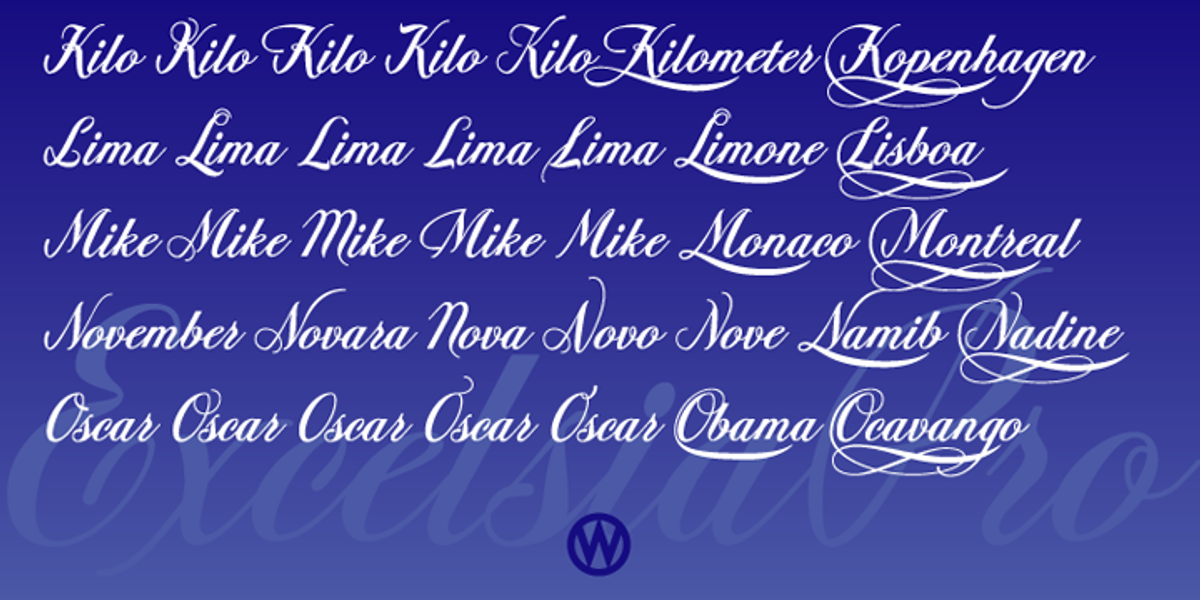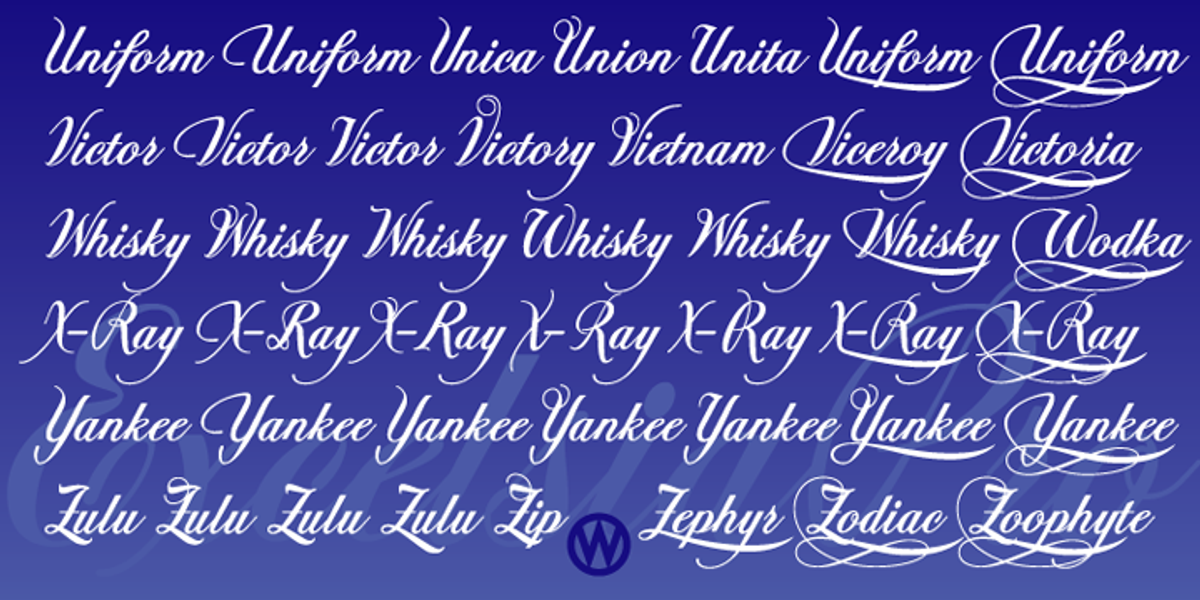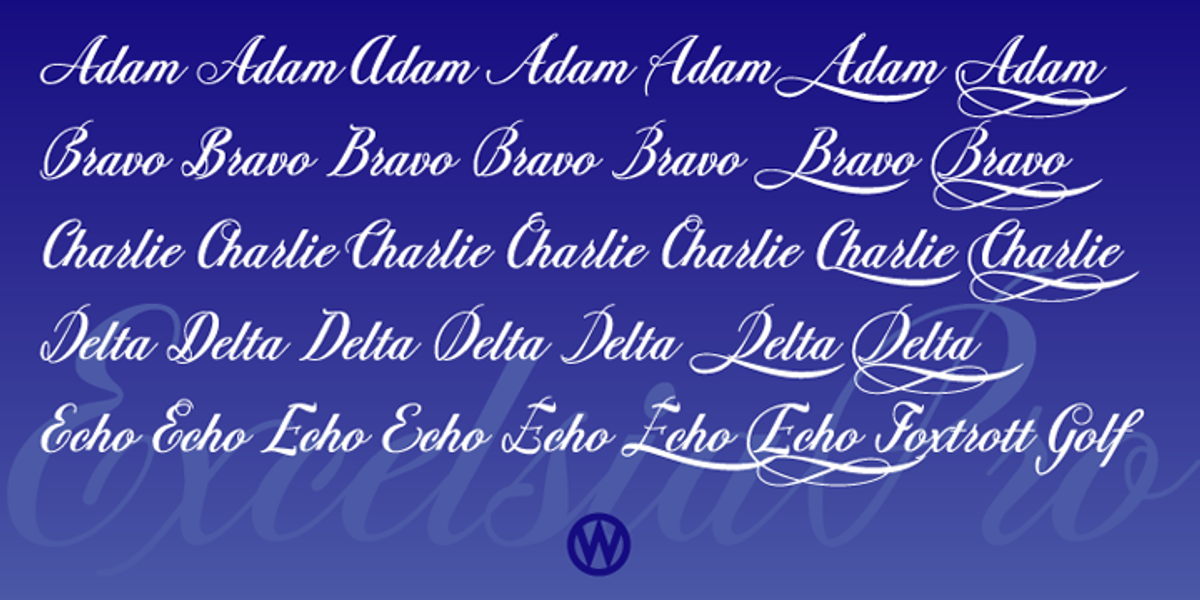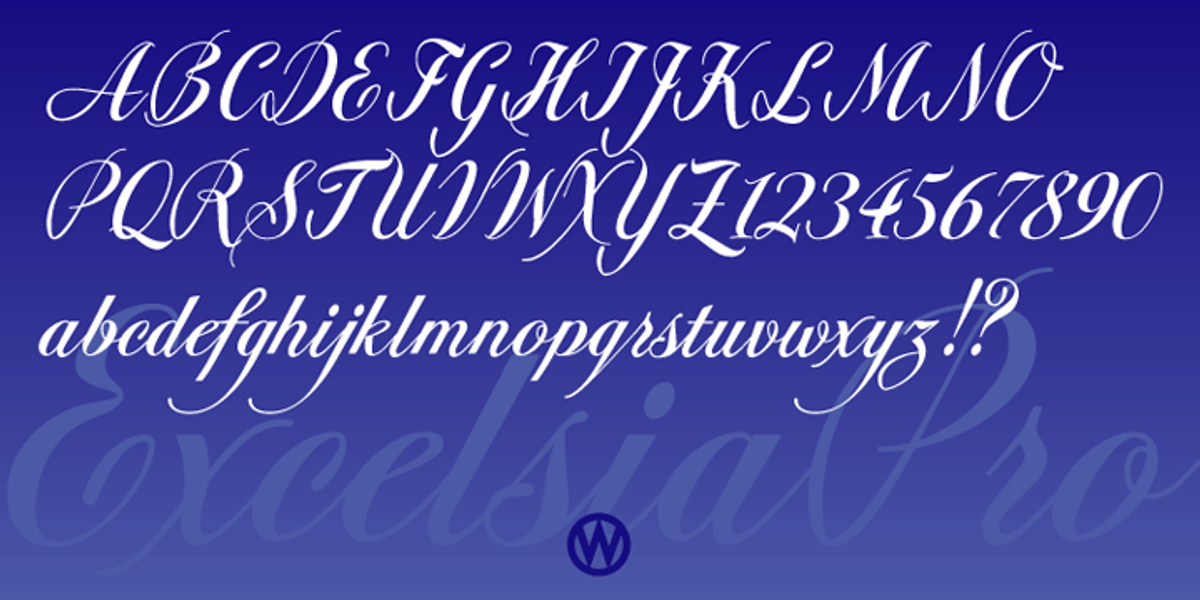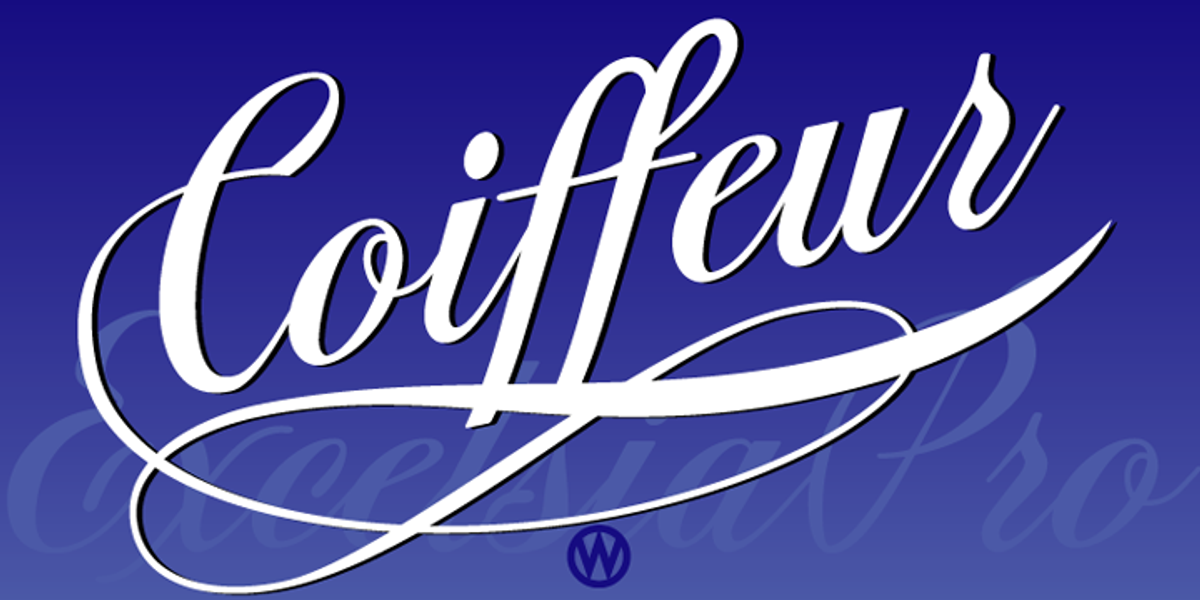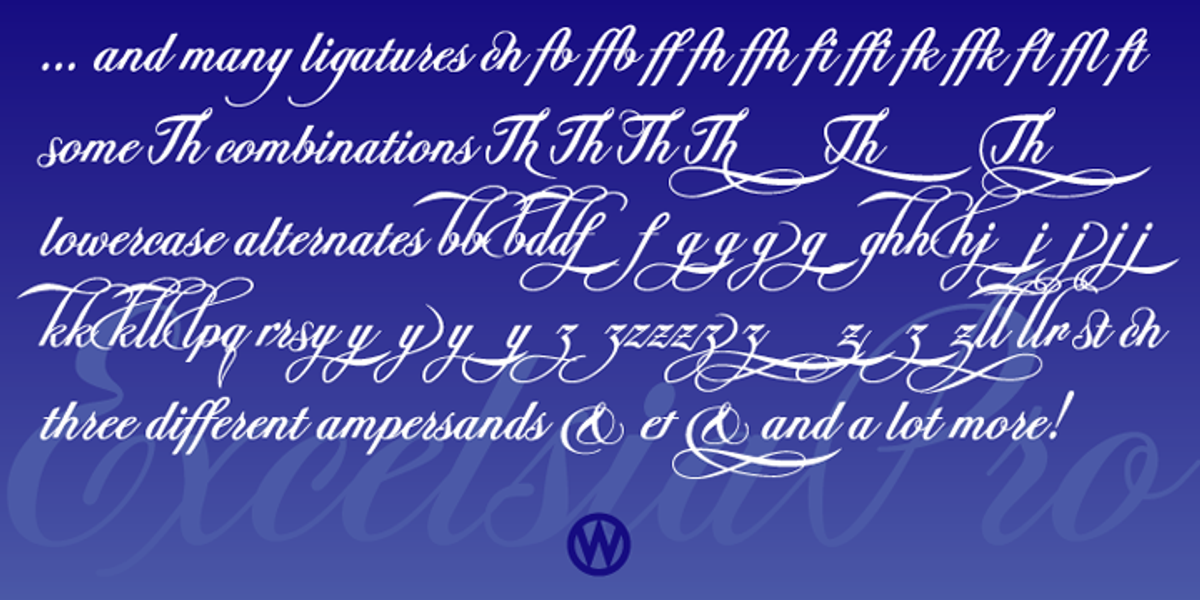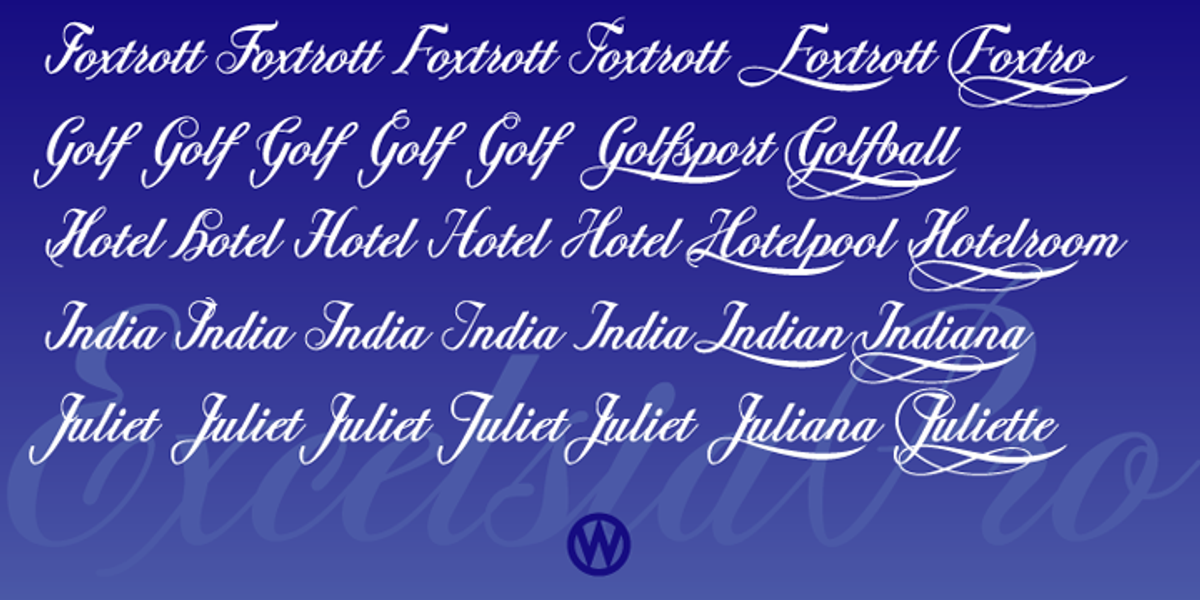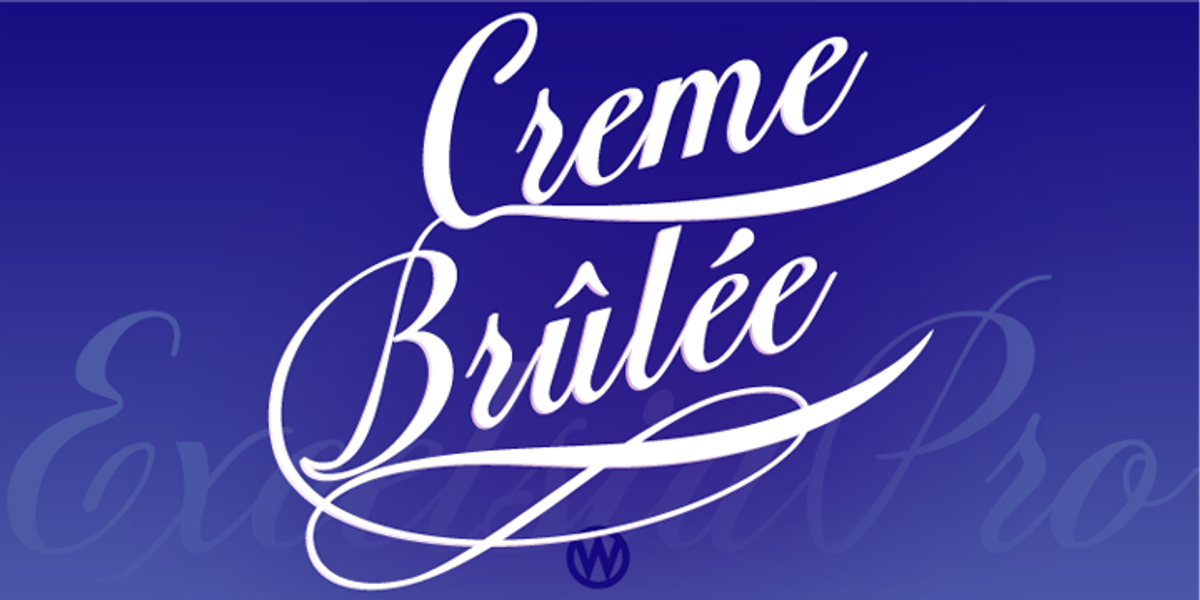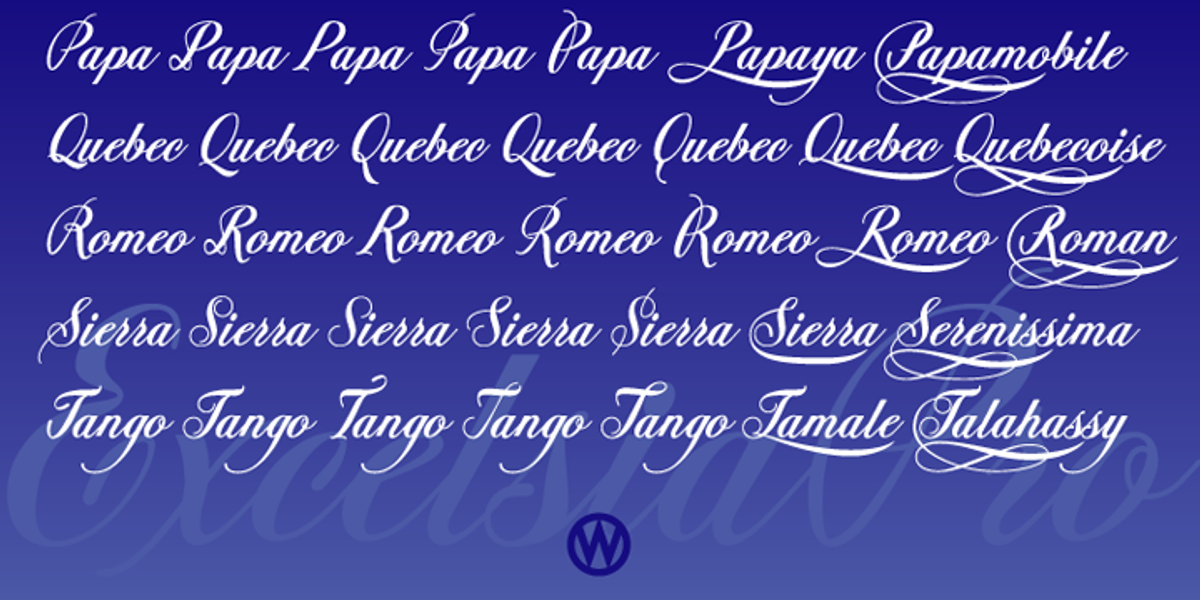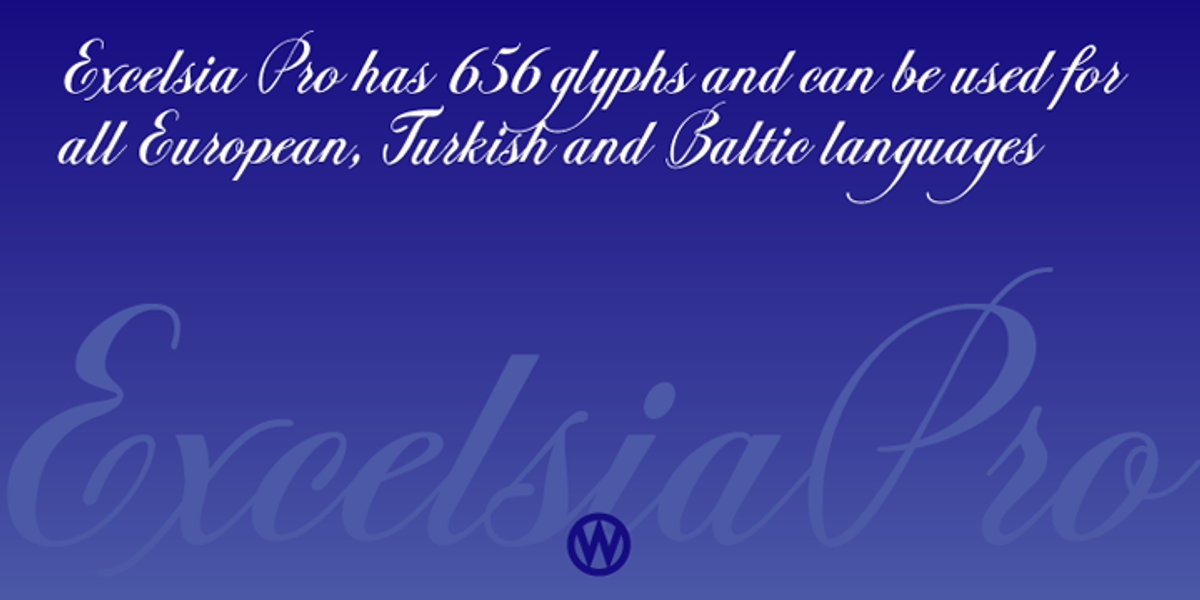
Excelsia Pro
Excelsia Pro is a meticulously crafted formal script font inspired by the elegance of Bodoni and Fournier. It boasts a narrow design and features numerous stylistic variations accessible through OpenType-savvy software. These variations include multiple uppercase letterforms, distinct ampersands and @ symbols, unique Th combinations, and a wide array of lowercase letter designs. The font's versatility extends to supporting languages across Europe, Turkey, and the Baltic countries.